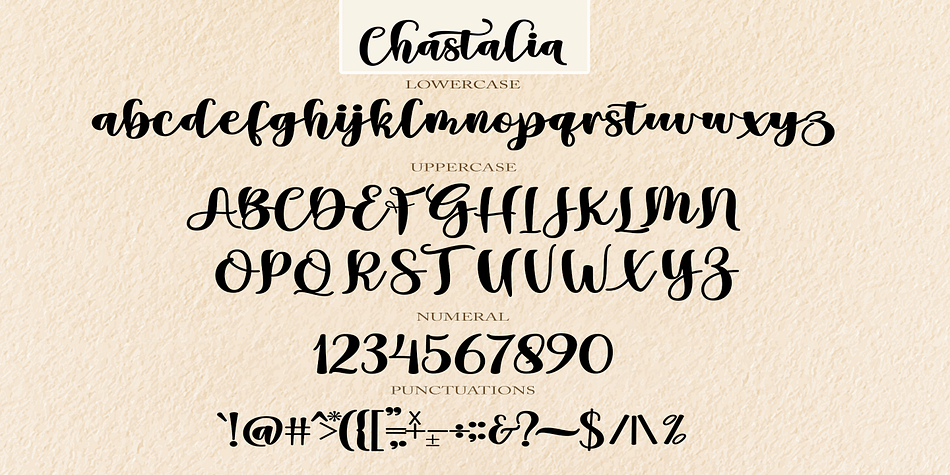
Chastalia
Chastalia is a modern calligraphy font family published by HRZ Studio.
Thanks for checking out Chastalia Script A very fun yet elegant script font with lots of energy, allowing you to create beautiful handcrafted typography in an instant. With extra curves & twists, Chastalia Script is guaranteed to make your text stand out - perfect for logos, printed quotes, invitations, cards, product packaging, headers and anything else you can imagine.
What’s really awesome is that Chastalia Script comes with a full set of lowercase alternatives, which allow you to create more authentic custom-feel texts.
This type has become the work of true love, making it as easy and fun as possible.
Foundry HRZ Studio
Style Modern Calligraphy